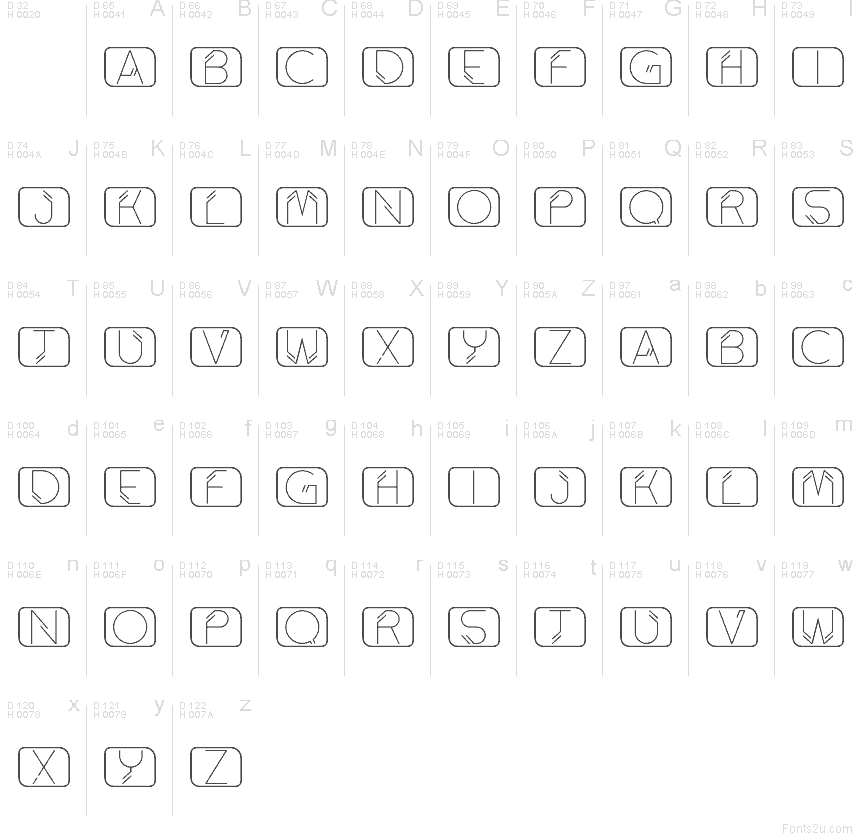
Expert Thin Regular
Expert Thin font by Vladimir Nikolic is a free decorative display typeface that turns every character into a sleek, rounded tile. Ultra-fine monoline strokes trace the letterforms like glowing wire inside soft-cornered rectangles, creating a crisp, modular rhythm across a line of text. The Expert font family’s thin weight feels futuristic and airy, as if your words were etched into glass or lit by a cool neon outline.
Using Expert Thin, your titles snap into a clear, grid-like system that’s great for sci‑fi logos, tech posters, game interfaces, badges, and experimental packaging. This free font works best at larger sizes, where each capsule-shaped block can breathe and repeat like a pattern. Pair it with a clean geometric sans for body copy to keep the layout sharp and readable while Expert Thin handles the visual flair.